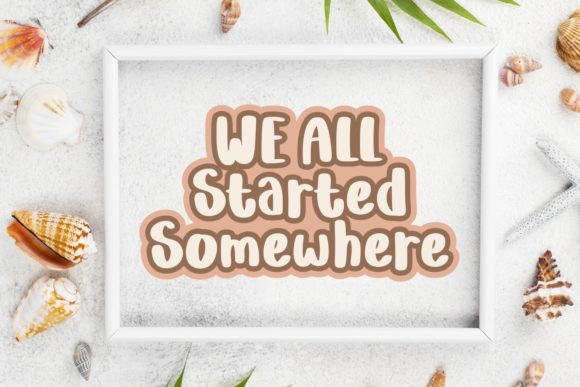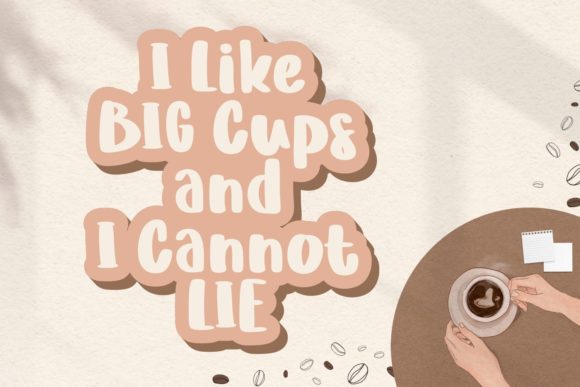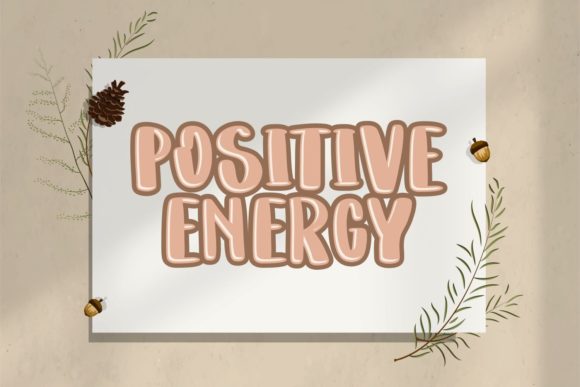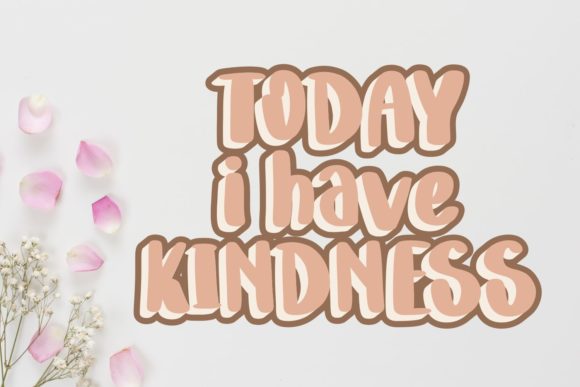
Introduction to Pink Happy Font
Pink Happy is a cute, thick lettered and charming display font.
Whimsical and a bit quirky, this font will brighten up each of your designs Add it confidently to your projects, and you will love the results.